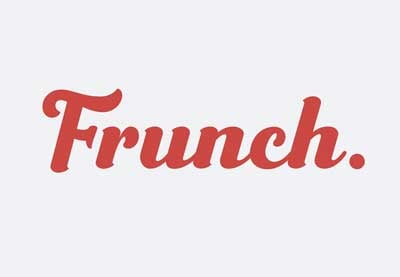
The Best Cricut Fonts for Vinyl (Tips and Examples)
Don't waste time and vinyl working with fonts that don't yield good results. Instead, read these easy tips and find the best fonts for Cricut vinyl from Envato Elements for vinyl cutting with Cricut.
Now, let's carry on with the ultimate Cricut font list that has everything you could desire: the best cursive fonts for Cricut, popular Cricut fonts, impressive Cricut lettering fonts, vinyl fonts, and more.
1. Party With Your Cricut
Look, the whole point of having a Cricut is to have fun, right? So don't stick to the same old boring fonts. Live a little! Of course, you'll want a font that isn't too difficult to cut, but aside from that golden rule in Cricut land, the sky's the limit. To start this list of Cricut fonts, here are some awesome options for you to try.
Best Fonts for Cricut Vinyl (Decorative)
1. Zaiden Futuristic Typeface: Modern Cricut Example (TTF, OTF, WOFF)
Look at this minimalist display font with a futuristic feel. With its unique design and strong impact, it's one of the best Cricut fonts for T-shirts. Download it and start designing!
2. ANNA Sans Serif Vinyl Font (OTF, TTF)
This wonderful decorative font is just what you need for your next Cricut project. Anna is a contemporary sans serif font with a sharp, clean design and some innovative letterforms, like the triangular "A" shown here. It's one of the most popular fonts for Cricut on Elements.
3. Saltillo Cricut Lettering Font (TTF, OTF)
If you're looking for the best Cricut fonts for T-shirts, try Saltillo. It's an elegant script font that would be perfect for displaying a quote or slogan that you can cut in vinyl and apply to your shirt. There are tons of glyphs, alternates, and ligatures to experiment with!
4. Aeros (TTF, OTF)
Wouldn't this make a great addition to your design? Check out the unique design elements here, with the different styles of "A" and more. Experiment with Aeros if you're going for a sci-fi or tech theme for your design, or if you just want something very cool and contemporary.
5. Laser: Popular Cricut Font (TTF, OTF)
This clean, modern font is just what you need when you are looking to make an impression. One of the top Cricut fonts at Elements, Laser includes regular, outline, and stamp styles, which could be great for mixing and matching your text.
2. Beware of Very Thin Fonts & Other Pitfalls
We get it! You've fallen in love with a super-thin font, and you're dying to use it in your next Cricut project. Our advice? Step away from the font.
Why? Thin fonts are difficult to cut because the cut lines lie too close to each other. On top of that, they make the weeding process very difficult. However, if you want a few tips and tricks to give it a try, this post is here to help you out:
You may also want to try these fonts that are thin and elegant and should work much better than the very thin fonts.
Let's get into the next fantastic options in this Cricut font list:
Best Cricut Fonts for Vinyl (Slender)
6. Helios Typeface: Slender Cricut Example (OTF)
The best Cricut fonts for T-shirts are not only easy to cut into vinyl, but also very stylish! Helios ticks both of those boxes with ease. Play with the alternate versions, switch between rounded and regular corners, and more.
7. GELLO Vinyl Font (TTF, OTF)
Gello is a great example of the "thin, but not too thin" mantra. It's the best font for Cricut projects where you want a simple, elegant font to show off your design.
8. Abro Rounded Cricut Lettering Font (OTF, TTF, WOFF)
Abro Sans is about as thin as you want to go when you're looking for the best font for iron-on vinyl. It has that clean, minimalist look, but it's not so thin that it will be difficult to cut and weed.
9. Venditum Typeface (OTF)
Monoline typefaces like Venditum can work just as well as thick fonts for Cricut, as long as they're not too thin. Just be sure not to make the design too small—you don't want the cutting and weeding process to get too fiddly.
10. Suissnord: Popular Cricut Font (TTF, OTF)
With its sleek lines and consistent weight throughout, Suissnord is one of the most popular fonts for Cricut on Elements.
3. Learn to Weld
No, not the kind of welding where you need a torch and helmet! If you love cursive fonts as much as we do, you need to know how to handle them effectively so that they give you the results you want. The easy step that you need to take with them is to weld them together.